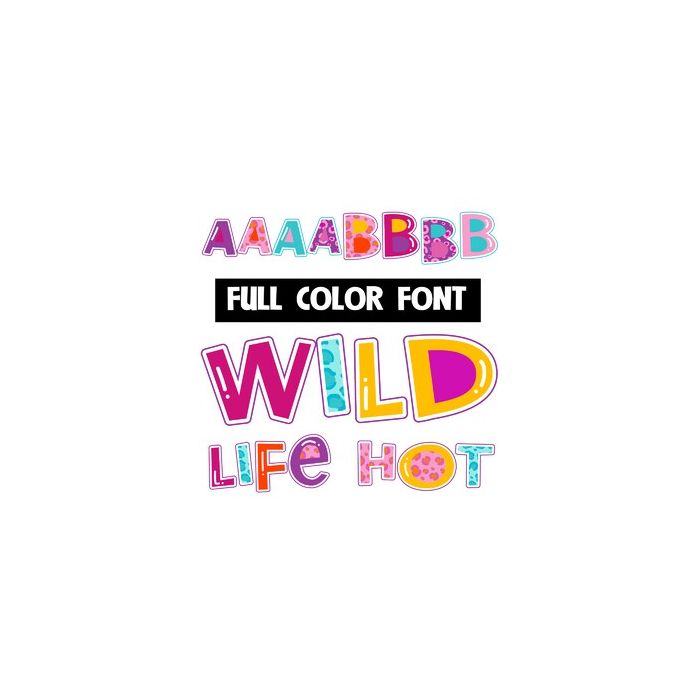
This full-color font features a hot, wild-animal color palette with an alt version of every letter you can access through your system or Silhouette's glyph map.